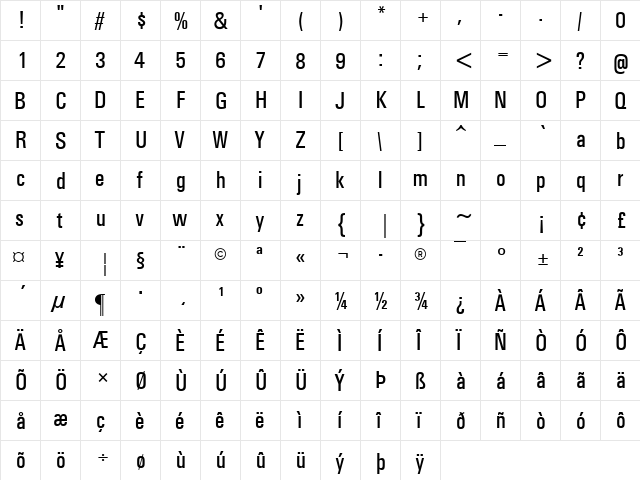
MilkyWayCondensed Regular
Design Context for MilkyWayCondensed Typeface
MilkyWayCondensed is a composed and adaptable typeface that performs quietly and consistently across a wide range of design contexts. The condensed width makes it efficient for tight spaces without sacrificing legibility.
Pro Tip: Pair MilkyWayCondensed with a font of contrasting weight or personality to build a more expressive typographic hierarchy.